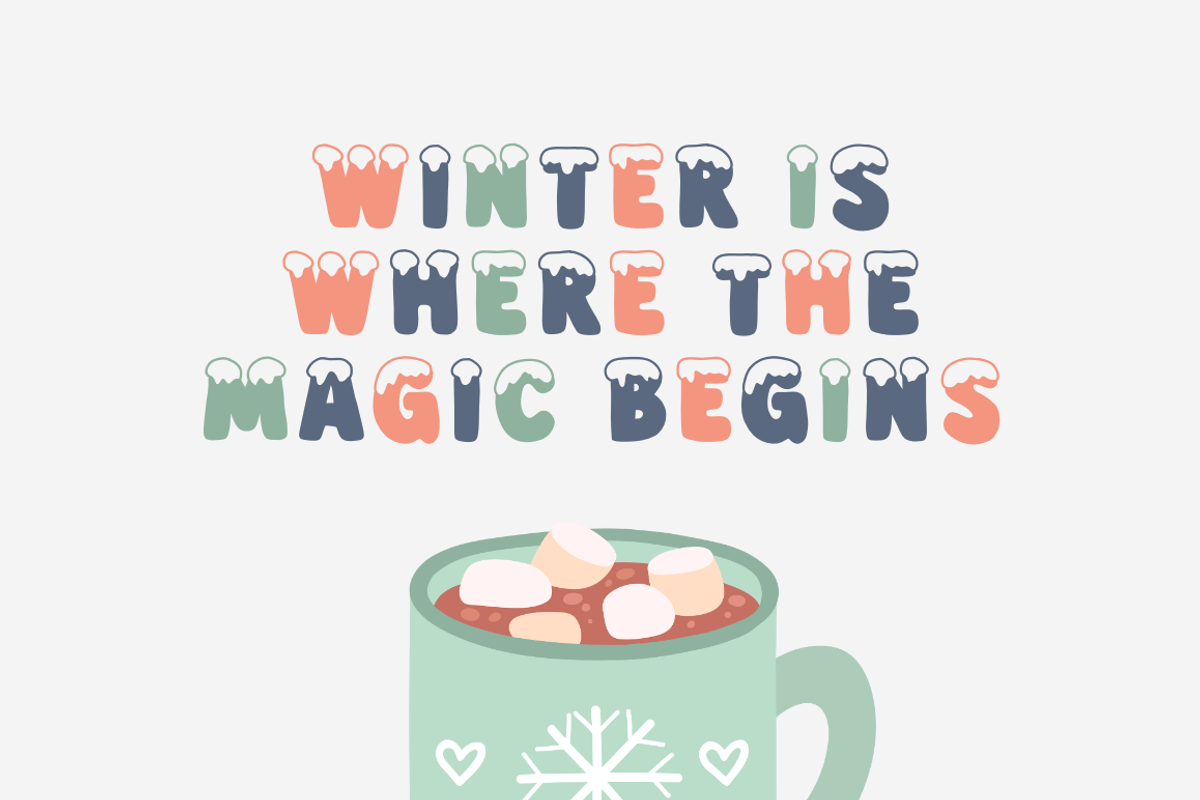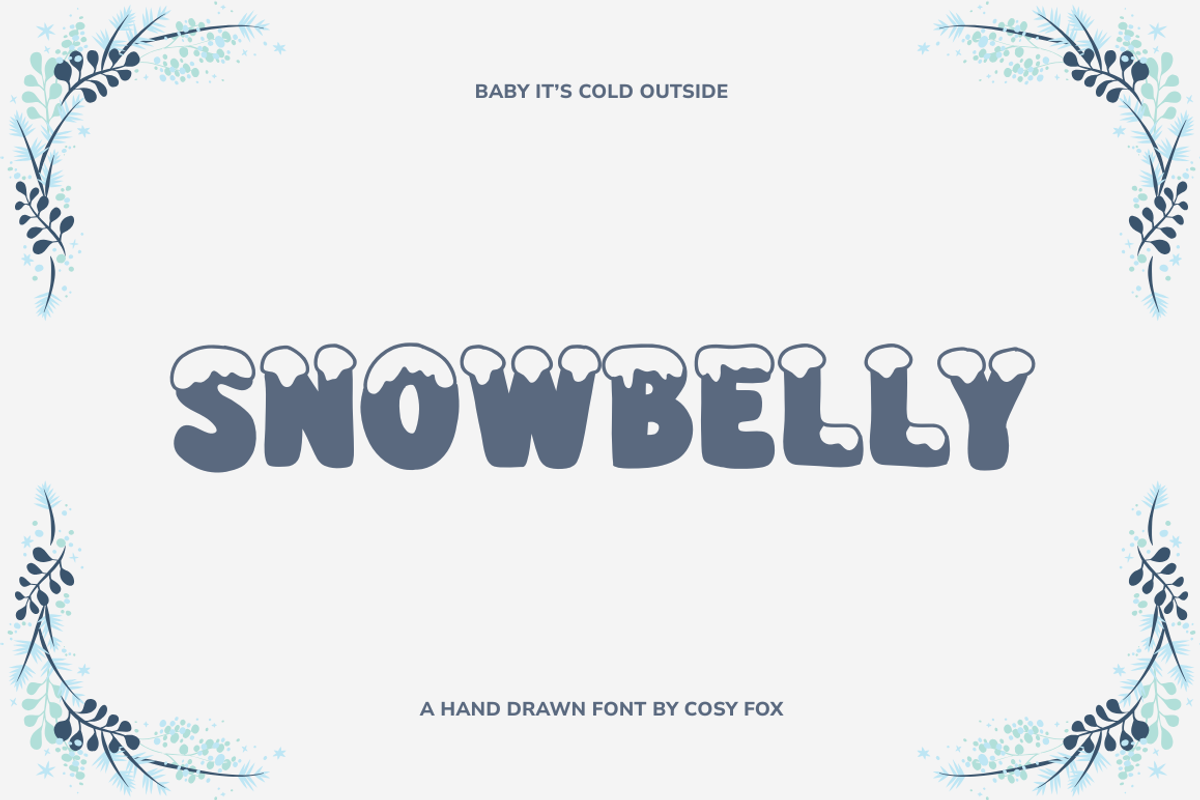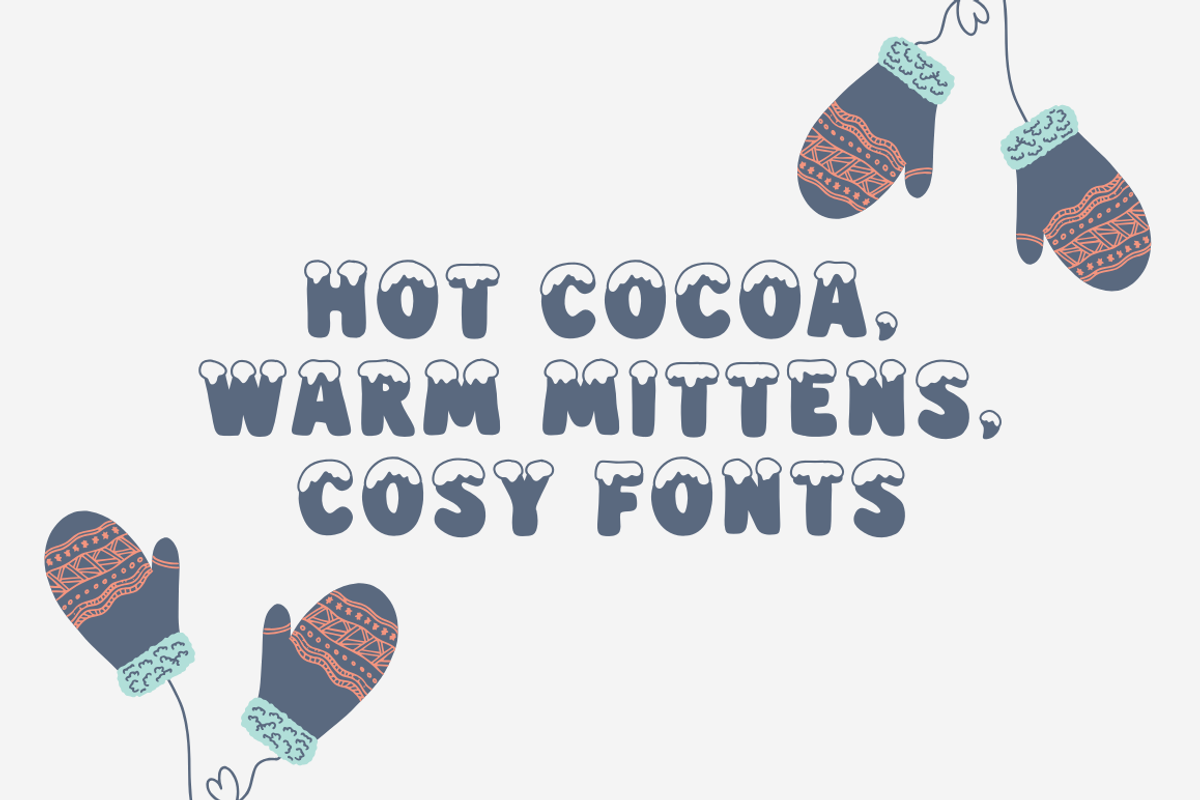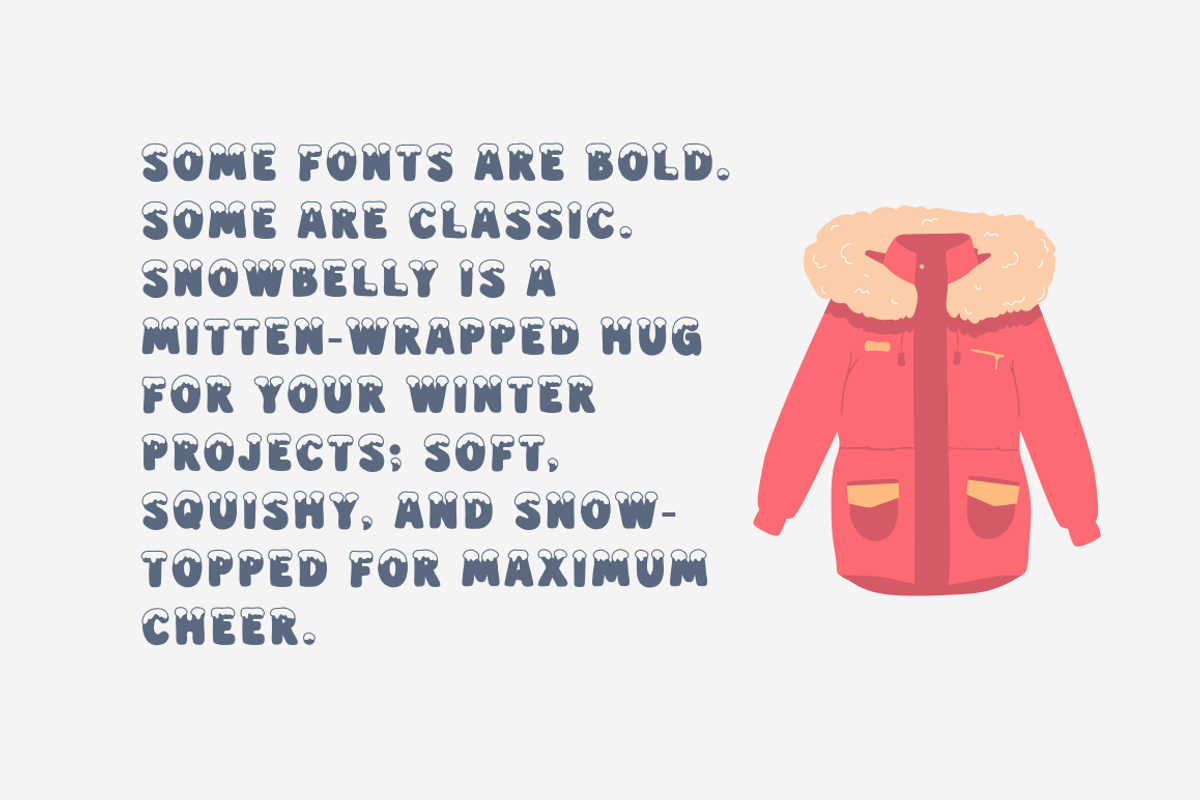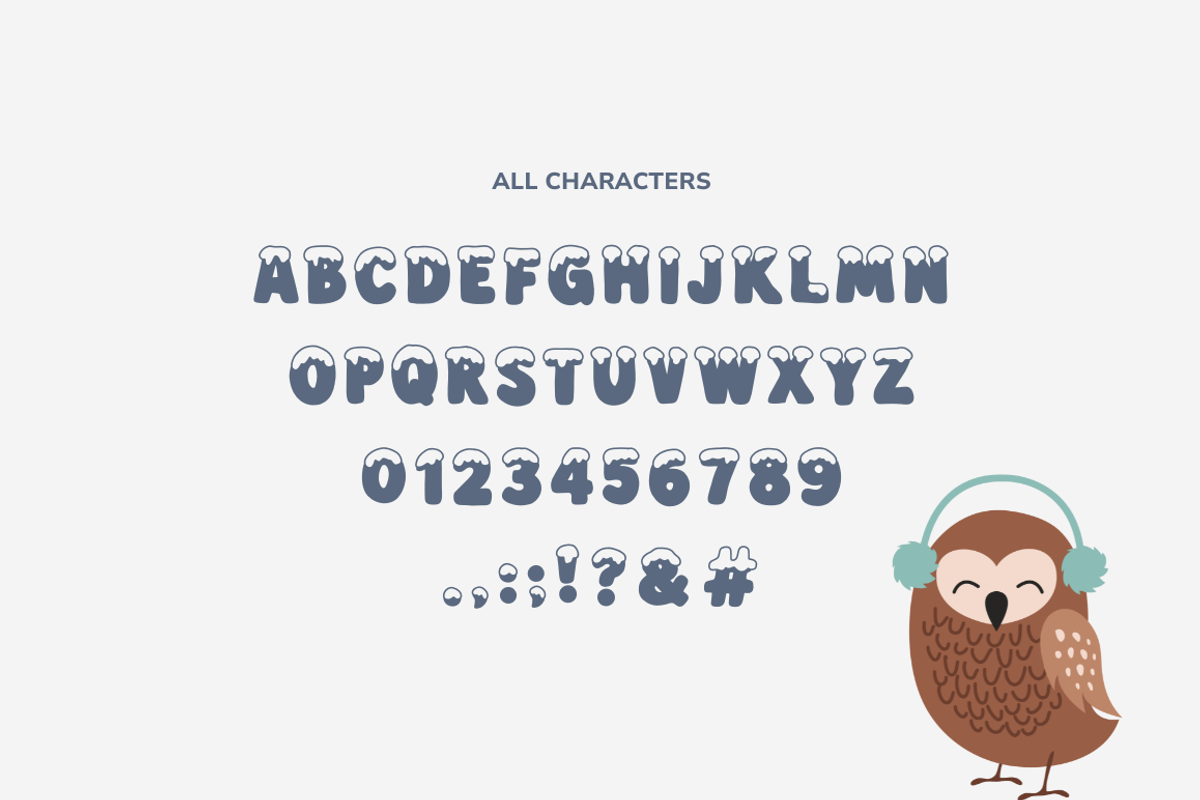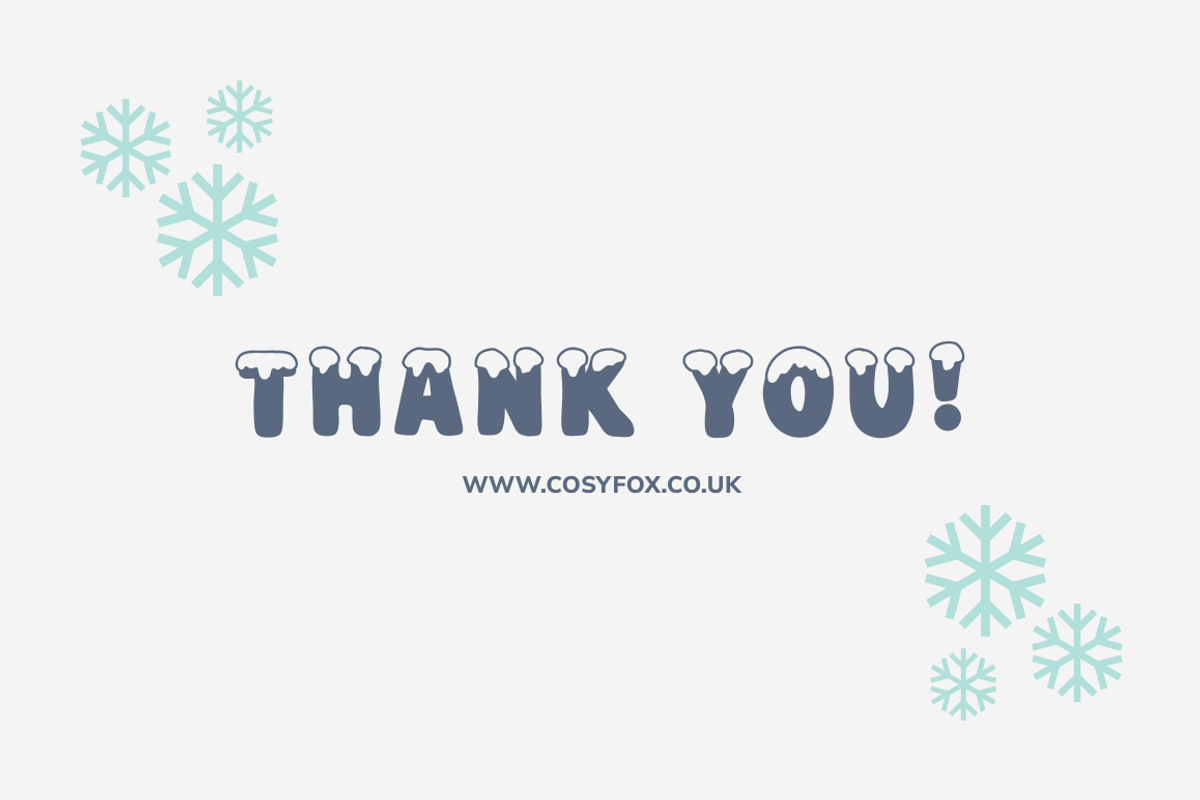
Snowbelly – Cute Winter Display Font
Snowbelly is a hand-drawn winter font with plump, playful letters and frosty snow caps on top. It’s perfect for Christmas cards, seasonal product packaging, social posts, planner pages, or any project that needs a little snow-sparkle!
With its chubby letterforms and whimsical snow details, Snowbelly brings instant charm to your cosy winter designs.
- ❄️ Uppercase only